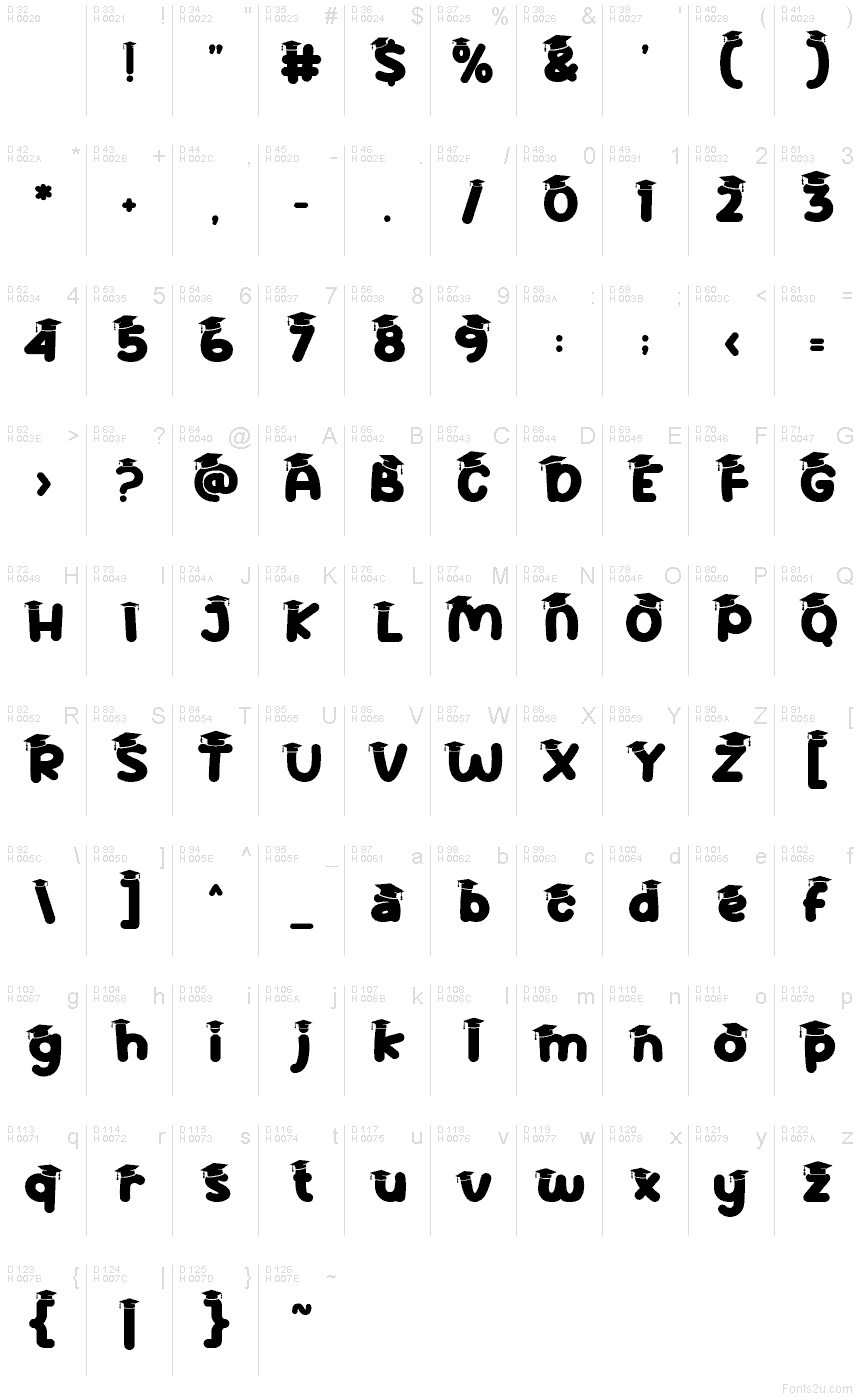
Super School Hat
Super School Hat font by PutraCetol Studio is a decorative bold display font centered around an educative theme with whimsical touches. This informal aesthetic font showcases a crooked calligraphic style bearable by a casual vibe and engraved in an odd graduation motif. The free custom typeface unveils handwritten originality from each creatively designed letter.
The familiarity of this display font adds wholesome originality to your designs and projects. It provides eye-catching headlines for educational blogs and themes for children’s books and covers, food packages, posters, albums, single covers as well as greeting cards in addition to social media posts and branding projects.